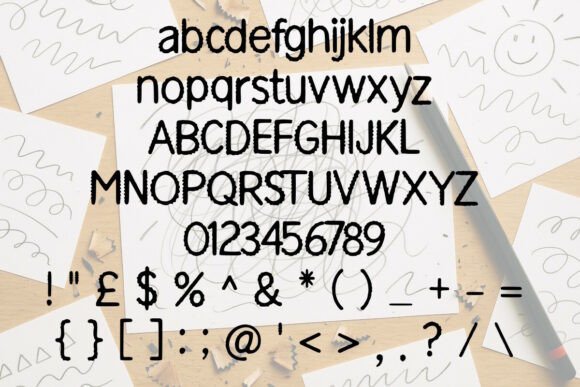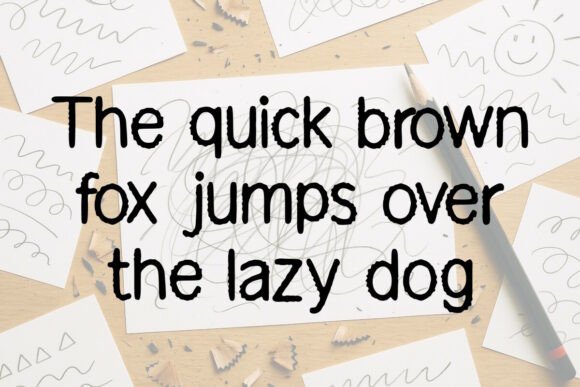
Introduction to Oops My Pen Slipped Font
We’ve all been there – scribbling away in our notebooks, trying to get the perfect handwriting, when suddenly our pen slips and we’re left with a beautiful, wobbly line. It’s in these imperfect moments that true creativity often emerges, and that’s exactly what makes Oops My Pen Slipped Font so special. This charming font captures the essence of a handwritten note, with its wonky lines and endearing imperfections.
With its quirky charm and handmade feel, Oops My Pen Slipped Font is sure to add a touch of whimsy to any design project, making it a must-have for anyone looking to create something truly special.
Key Features of Oops My Pen Slipped Font
- Unique, handwritten font design perfect for creative projects requiring a personal touch
- Designed to add a touch of whimsy and personality to any design project
- Perfect for use in digital and print design, including logos, graphics, and typography
Honest Review: Oops My Pen Slipped Font
I recently stumbled upon the Oops My Pen Slipped Font while searching for a quirky design resource to add some whimsy to a creative project. The font has a fun, handwritten feel that’s perfect for adding a personal touch to marketing materials, social media graphics, or even wedding invitations.
Here are some pros and cons of this free download:
- ✨ High-quality design that’s sure to grab attention: The Oops My Pen Slipped Font is well-designed and has a lot of character.
- ✨ Transparent background: This makes it easy to use in a variety of design applications without worrying about background bleed.
- ⚠️ May not be suitable for formal projects: While the font is perfect for creative projects, it may not be the best choice for formal documents or presentations.
Overall, I’m impressed with the Oops My Pen Slipped Font. It’s a fun and unique design resource that’s perfect for adding a personal touch to creative projects. Just be aware of its limitations, and you’ll be all set to create some amazing designs.
Tips for Getting the Most Out of Oops My Pen Slipped Font
Use this font for headings and titles to add a playful touch to your design project. You can also use it for body text to create a cohesive look. Experiment with different font sizes and colors to get the most out of this high-quality font.
Oops My Pen Slipped Font is perfect for creative projects like brochures, flyers, and business cards. You can also use it for presentations, documents, and social media graphics. Its transparent background makes it easy to use as a design element in your project.